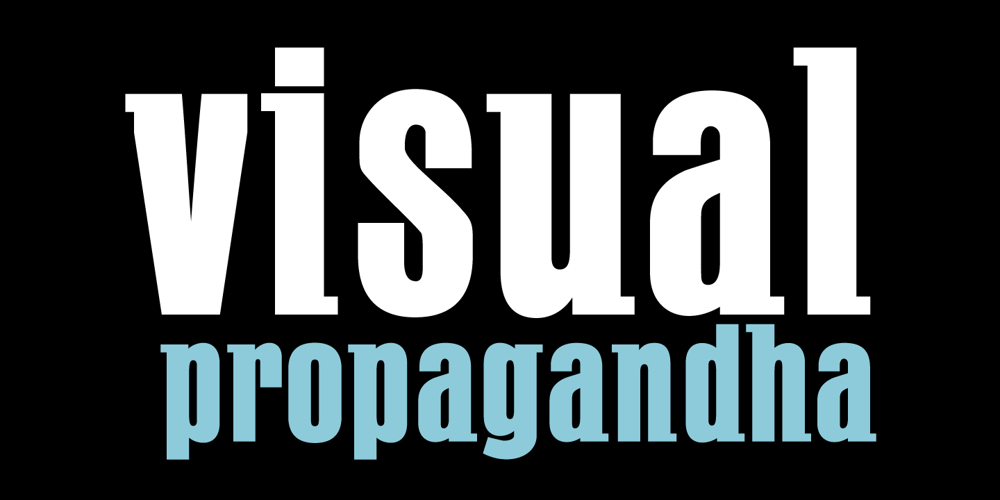
PF Fusion Slab
PF Fusion Slab font
PF Fusion Slab Font Family was designed by Panos Vassiliou and published by Parachute. PF Fusion Slab contains 3 styles and family package options. Fusion Slab was developed based on Fusion Sans Pro, as an amalgamation of traditional early nineteenth-century letters. Fusion Slab is a family of 3 weights with very tall x-height which is suitable for long headlines. On the other hand, its ascenders and descenders are extremely short so text lines can be set with a very low leading value. It provides support for Latin and Greek.